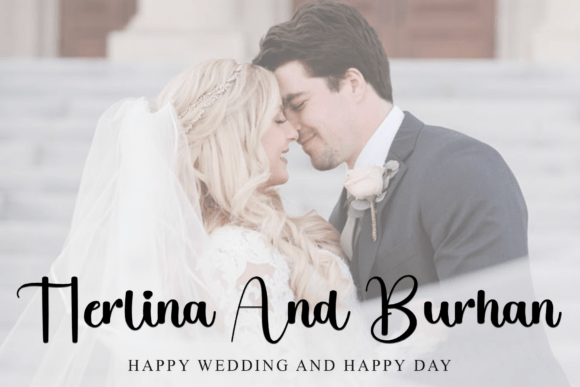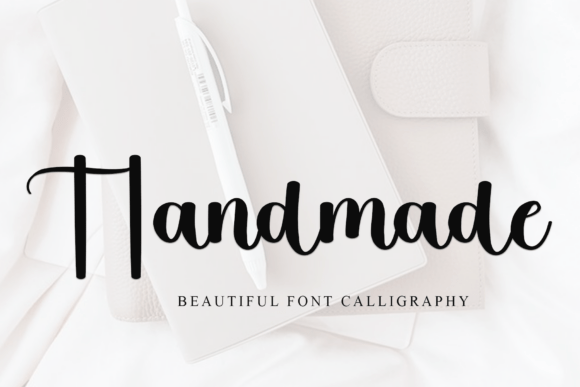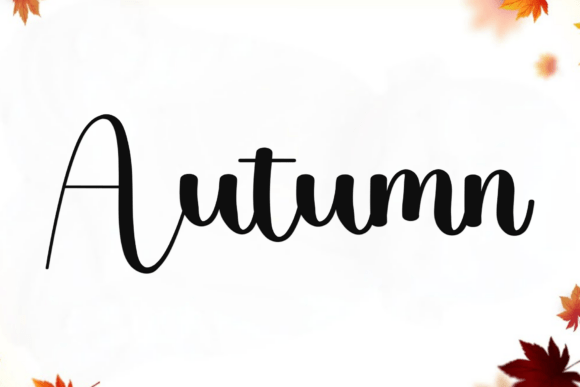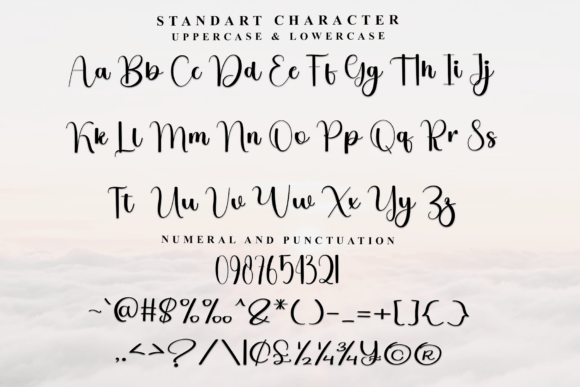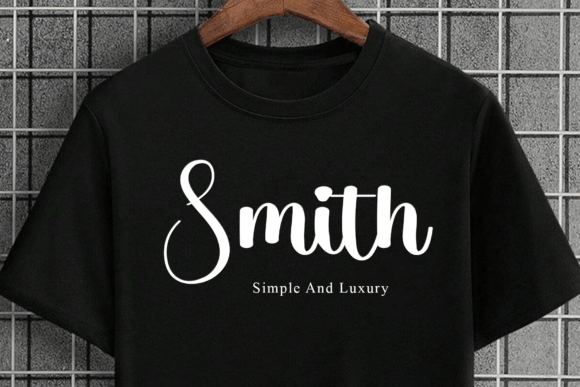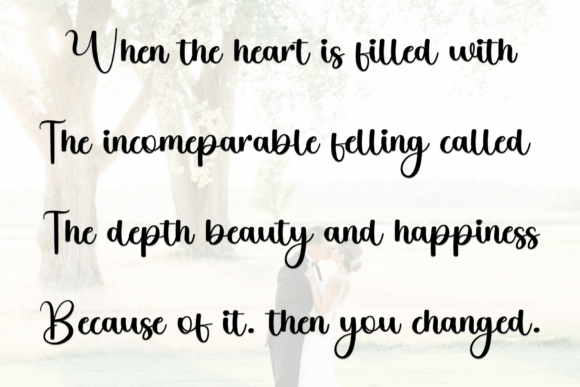
Introducing Delight Wedding Font: The Ultimate Festive Typeface for Your Holiday Designs
Are you looking for a font that embodies the spirit of the holiday season? Do you want to add a touch of magic to your designs, greeting cards, and gift tags? Look no further than Delight Wedding Font, a festive and merry typeface that’s perfect for bringing cheer and nostalgia to your projects.
A Festive Font that Captures the Spirit of the Holiday Season
Delight Wedding Font is a beautifully crafted typeface that’s designed to evoke the feeling of joy and celebration that comes with the holiday season. Its decorative elements and whimsical flair make it the perfect choice for designers, crafters, and anyone looking to add a touch of enchantment to their words.
Whether you’re creating holiday-themed projects, designing greeting cards, or making gift tags, Delight Wedding Font is the perfect choice. Its unique and festive design will instantly elevate your typography and give your projects a professional and polished look.
Delight Wedding Font is a versatile typeface that’s perfect for a wide range of design projects. Here are just a few ways you can use this amazing font:
- Greeting Cards: Add a touch of festive cheer to your holiday greeting cards with Delight Wedding Font. Its decorative elements and whimsical flair make it perfect for creating cards that will stand out from the crowd.
- Gift Tags: Make your gift tags extra special with Delight Wedding Font. Its unique design and festive spirit will add a touch of magic to your gifts.
- Holiday-themed Projects: Whether you’re creating a holiday-themed website, social media graphics, or print materials, Delight Wedding Font is the perfect choice. Its festive design will instantly elevate your typography and give your projects a professional and polished look.
Delight Wedding Font is PUA encoded, which means you can access all of the amazing glyphs and ligatures with ease. This makes it easy to create beautiful and intricate designs without having to worry about complicated font management.
With Delight Wedding Font, you can easily access a wide range of glyphs and ligatures, including:
- Decorative Elements: Add a touch of festive cheer to your designs with Delight Wedding Font’s decorative elements, including snowflakes, holly leaves, and more.
- Whimsical Ligatures: Create beautiful and intricate designs with Delight Wedding Font’s whimsical ligatures, including combinations of letters and decorative elements.
Why Choose Delight Wedding Font?
So why choose Delight Wedding Font for your holiday designs? Here are just a few reasons:
- Unique and Festive Design: Delight Wedding Font has a unique and festive design that’s perfect for capturing the spirit of the holiday season.
- Versatile: Delight Wedding Font is a versatile typeface that’s perfect for a wide range of design projects, from greeting cards to holiday-themed websites.
- Easy to Use: Delight Wedding Font is PUA encoded, making it easy to access all of the amazing glyphs and ligatures.
- High-Quality: Delight Wedding Font is a high-quality typeface that’s designed to give your designs a professional and polished look.
If you’re looking for a font that embodies the spirit of the holiday season, look no further than Delight Wedding Font. Its festive design, decorative elements, and whimsical flair make it the perfect choice for designers, crafters, and anyone looking to add a touch of magic to their words.